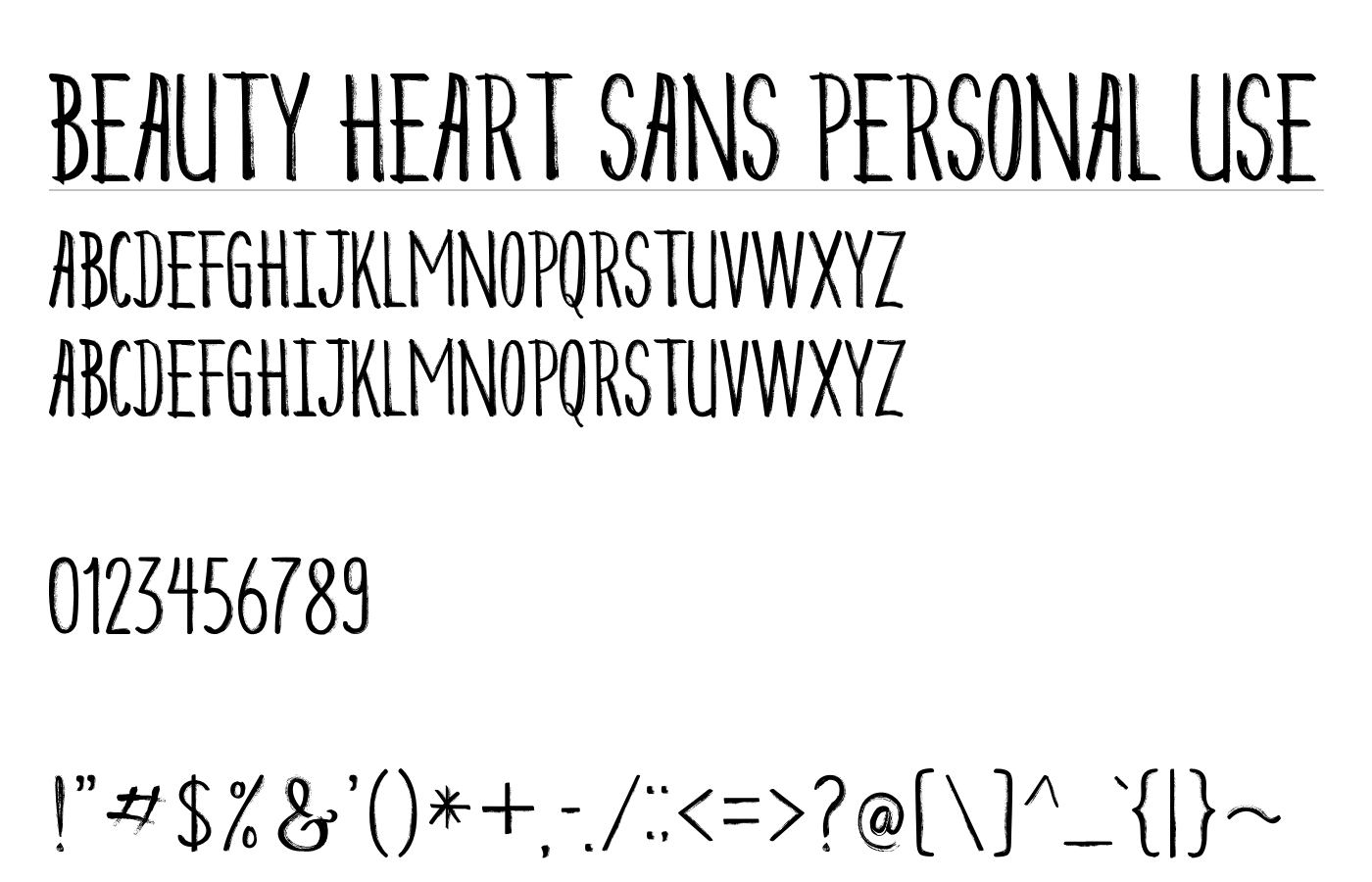
Beauty Heart Sans Personal Use is a playful, hand-drawn sans serif font with a tall, narrow look and subtle texture that adds a charming, informal feel. Its quirky letterforms and irregular strokes make it perfect for creative projects that want to convey friendliness and individuality, such as invitations, branding for artistic or youth-oriented products, and casual headlines. This font’s unique style works well where a personal, approachable touch is desired.
Beauty Heart Sans Personal Use Font
About Beauty Heart Sans Personal Use Font